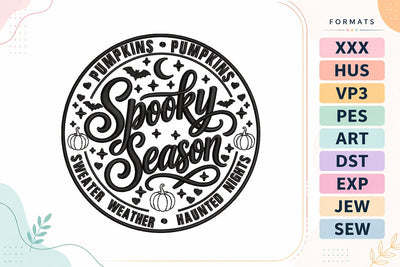
Halloween Spooky Season Embroidery Design
A stylish Halloween badge embroidery design featuring elegant script lettering with pumpkins, bats, moon, stars, and spooky seasonal accents. Perfect for sweatshirts, hoodies, tote bags, pillows, quilts, Halloween décor, party decorations, and handmade gifts. Sizes: 4x4, 5x7